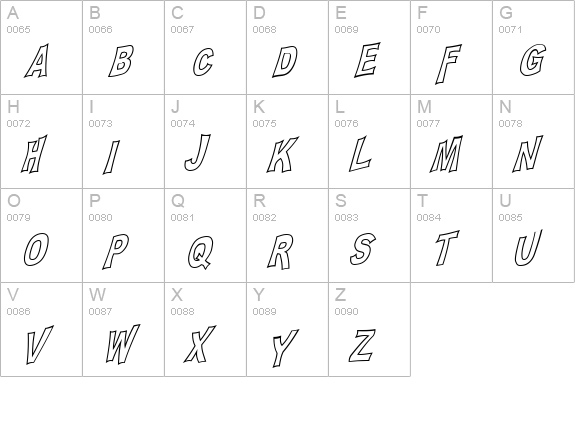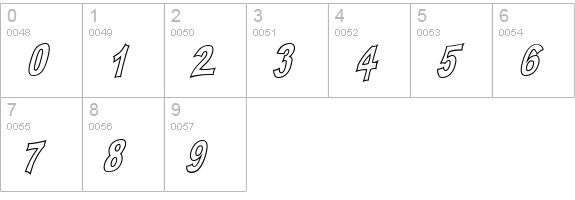
PLATSCH 2 outline Font Details
PLATSCH 2 is an artistic and playful outline font that adds a touch of whimsy to any design project. With its unique style and quirky charm, PLATSCH 2 is perfect for creating eye-catching headings, logos, and posters. The font features a hand-drawn look with irregular lines and shapes, giving it a fun and casual vibe. What sets PLATSCH 2 apart is its versatility - it can be used in a variety of design contexts, from children's books to event invitations to branding materials. This font is sure to stand out and make a statement wherever it is used. Best of all, PLATSCH 2 is completely free to download at FontsMarket.com. So go ahead and add this delightful font to your collection today and let your creativity shine!